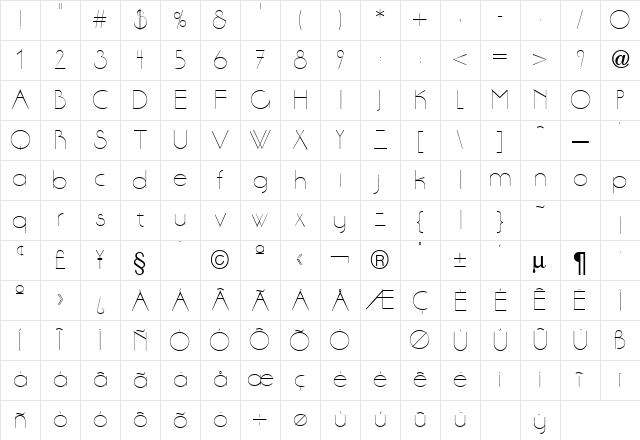
Aase Light Regular
Design Context for Aase Light
Aase Light is a composed and adaptable typeface that performs quietly and consistently across a wide range of design contexts. Its slender proportions lend an understated elegance to any composition.